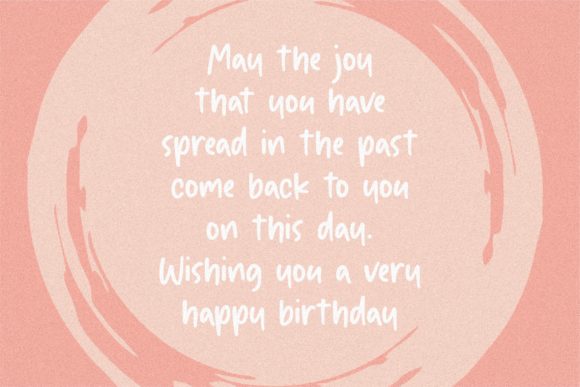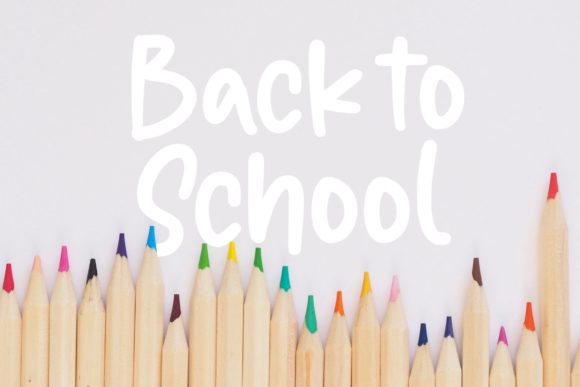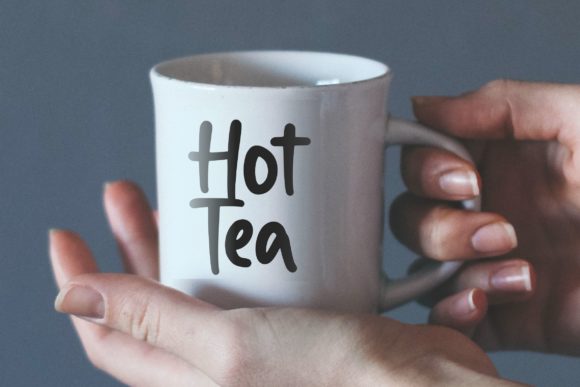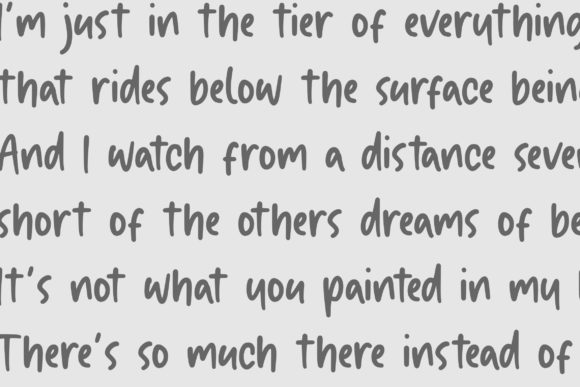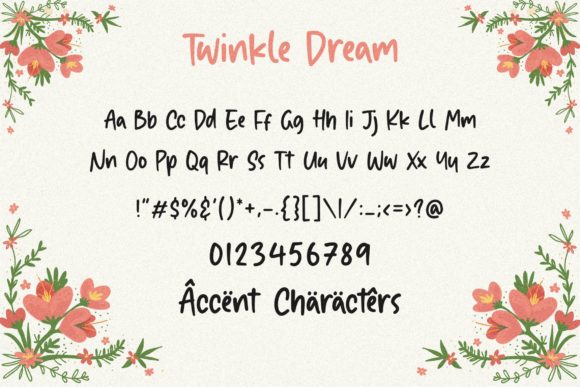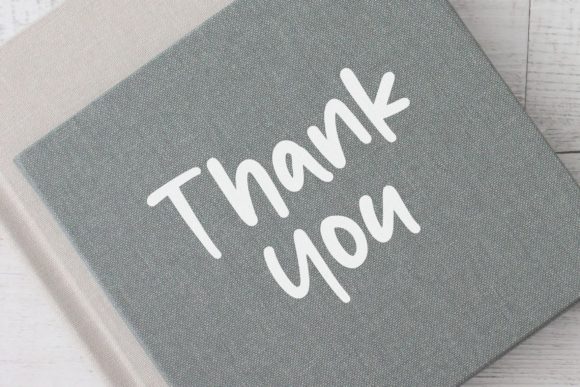
Twinkle Dream Font
About Twinkle Dream Font
Twinkle Dream is a captivating font that emerges from the beautiful fusion of a brush pen and pencil, resulting in an endearing and authentic appearance. This stunning pairing adds a touch of charm and uniqueness, making Twinkle Dream a perfect choice for a wide range of DIY projects.
The font’s captivating beauty, which stems from the blend of brush pen and pencil strokes, breathes life into your designs. Its endearing and authentic look creates a sense of warmth and intimacy, making it ideal for crafting heartfelt DIY projects.
Twinkle Dream’s versatility allows it to adapt seamlessly to various design themes. Whether you’re creating handmade greeting cards, personalized gifts, or home decor items, the font’s gorgeous and unique handwritten style adds a touch of magic to each creation.
With Twinkle Dream at your disposal, your DIY projects take on a life of their own. Its enchanting and authentic appearance infuses a sense of joy and wonder into your designs, making them truly special and memorable.
The font’s delightful combination of brush pen and pencil strokes adds an artistic flair to your projects, showcasing your creativity and making them stand out from the crowd.
Twinkle Dream’s endearing charm makes it a font that resonates with people of all ages. From children’s crafts to heartfelt gifts for loved ones, this font creates a connection and leaves a lasting impression.
Furthermore, Twinkle Dream ensures that your DIY projects remain visually appealing and engaging. Its unique style brings a touch of personality and individuality to your creations, making them a true reflection of your creative vision.
In summary, Twinkle Dream is more than just a font; it’s a beautiful expression of creativity and emotion. Its stunning pairing of brush pen and pencil strokes creates an endearing and authentic appearance that brings DIY projects to life. Embrace the beauty of Twinkle Dream and watch as it transforms your creative ideas into heartfelt works of art that captivate and enchant all who encounter them.